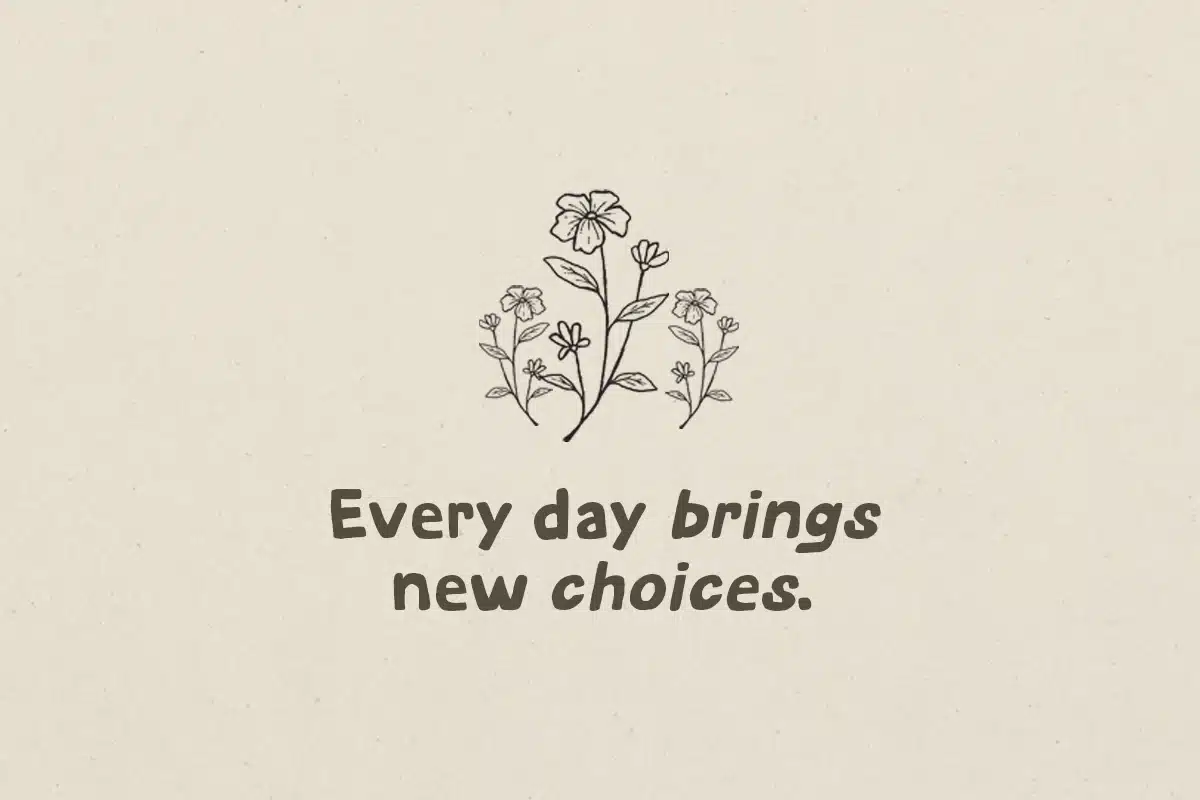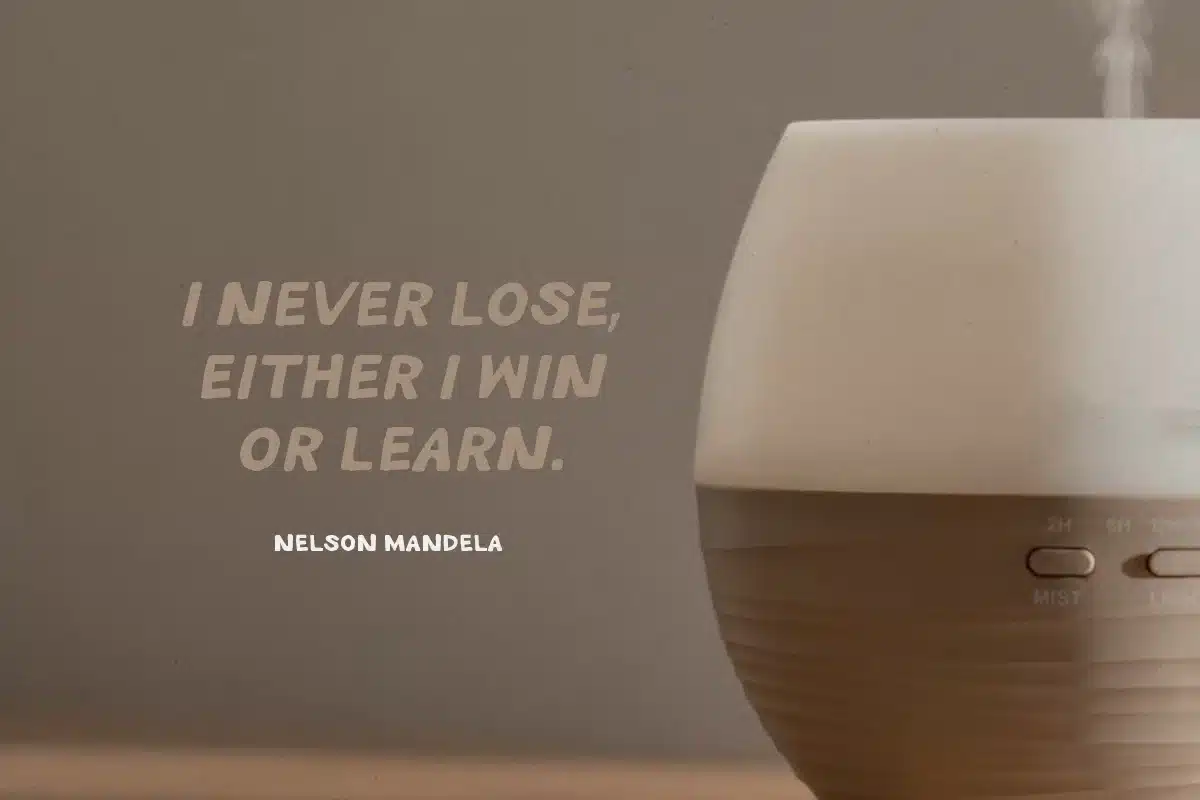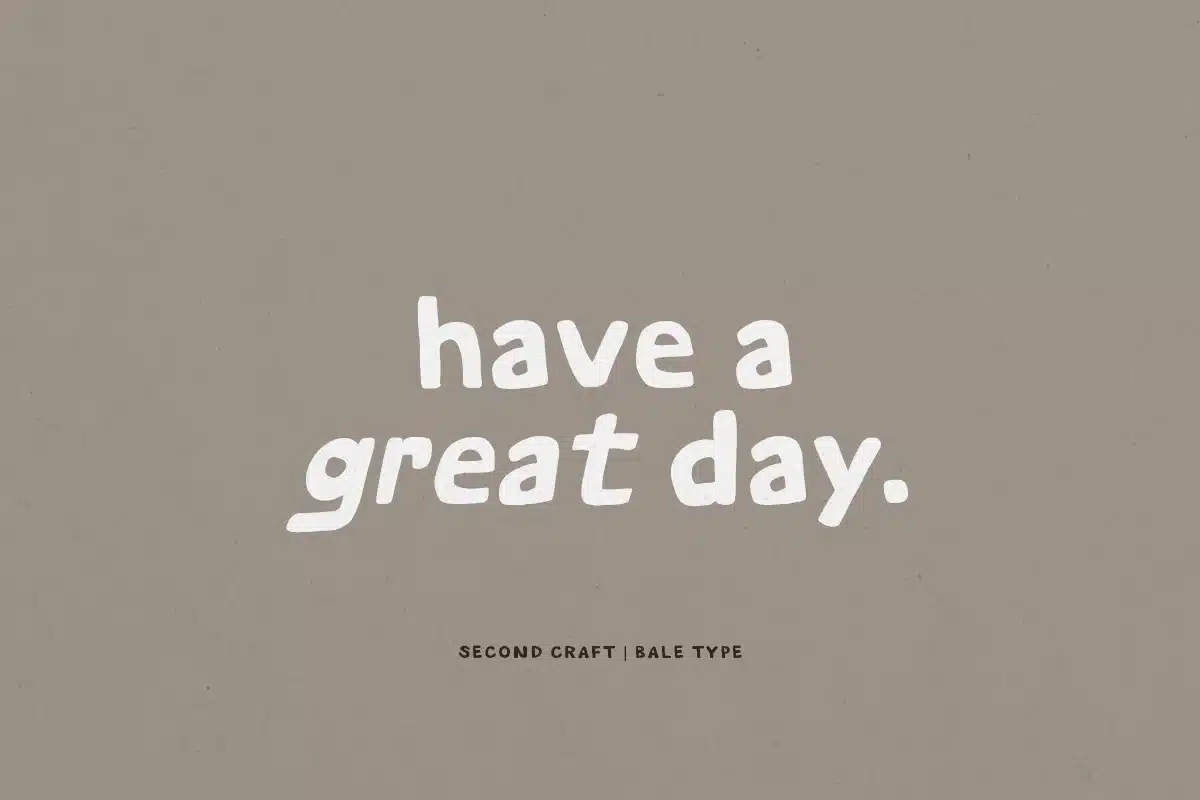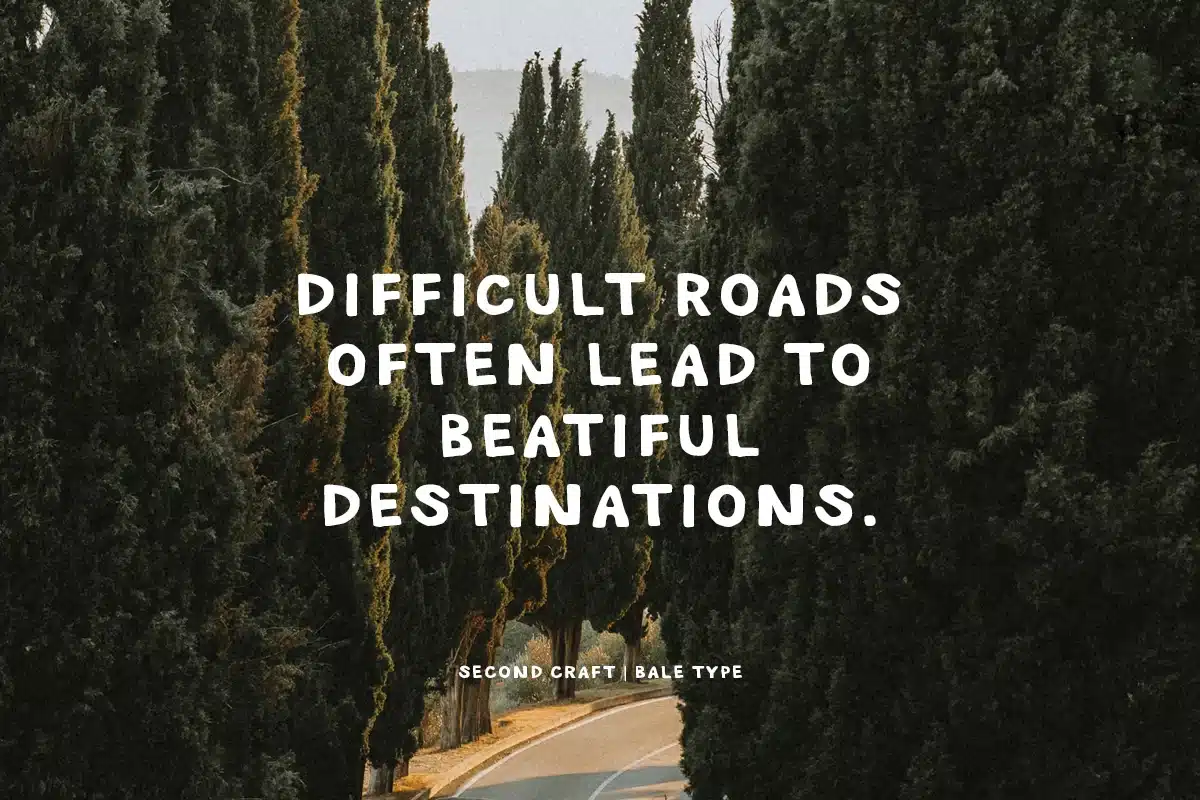
Second Craft – Handmade Bold Sans Font
Second Craft is a handmade bold font based on sans serif. With natural and hand-drawn looks, this font will make your design have an organic vibes. You can use this font for branding, logotype, and looks good for quotes. And you will get OTF/TTF file that you can install and use in any software designs especially Adobe Photoshop and Adobe Illustrator. Second Craft also support multi language.